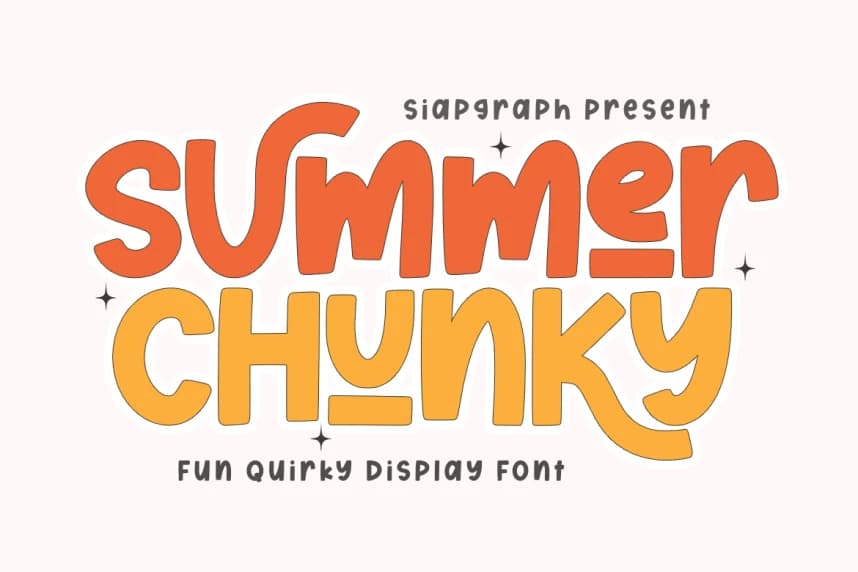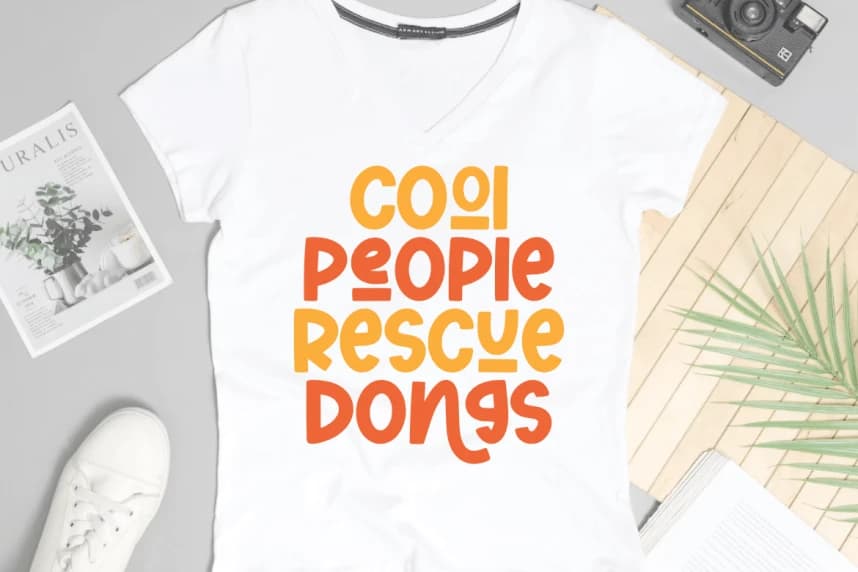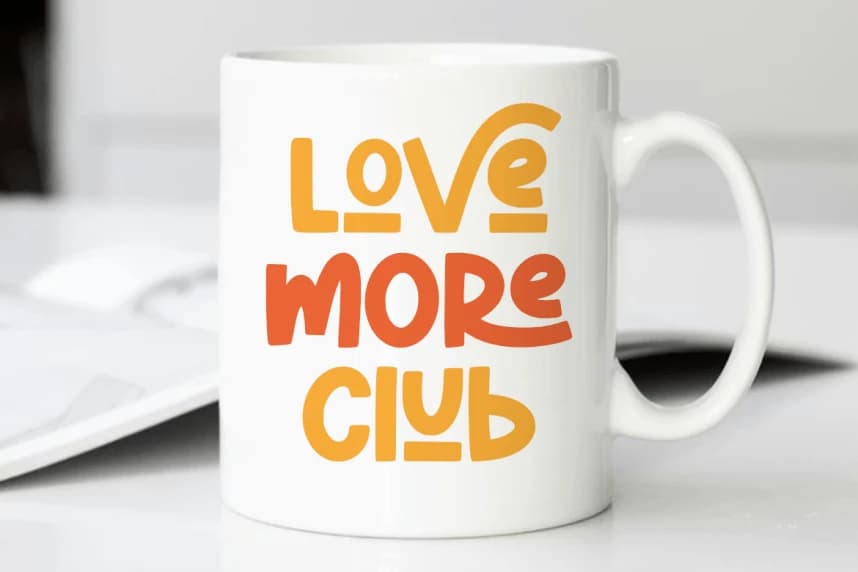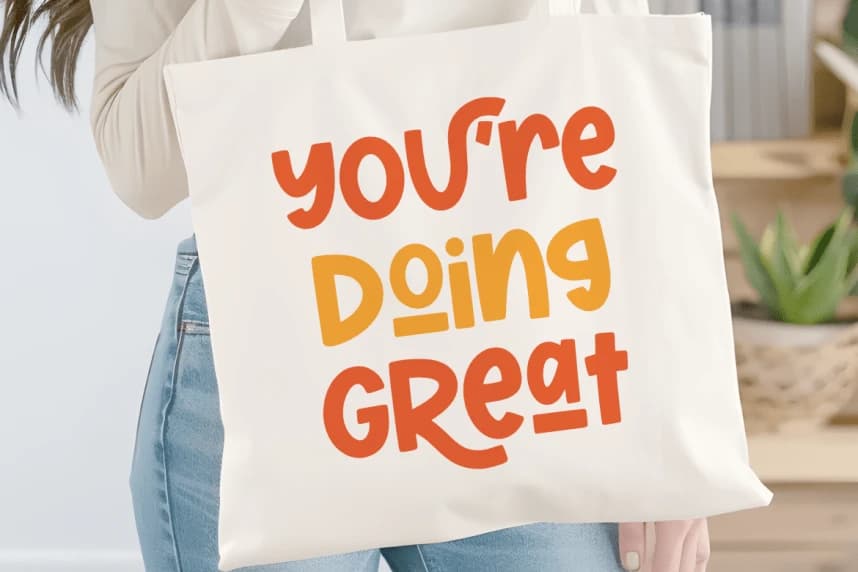
Summer Chunky Font
Summer Chunky Font is a fun quirky display font that captures the vibrant and carefree essence of sunny days and retro aesthetics. This typeface features bold, chunky strokes with unique underlined accents, giving your designs a spontaneous